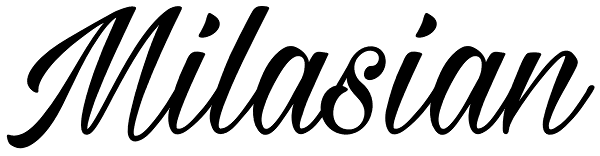
Milasian
Milasian, an elegant typeface developed by Måns Grebäck. Milasian is a flowing, casual script typeface, with a rich, inky composition, and a tad of a feminine vibe. It is advanced, soft, and enthusiastic. Milasian contains a supporting, vast range...